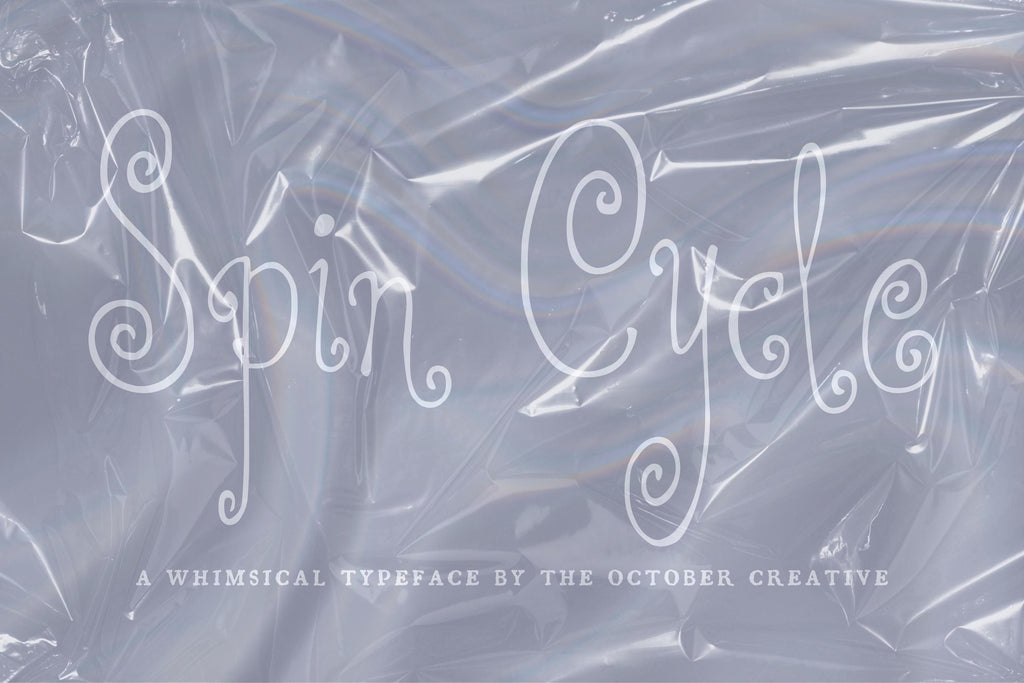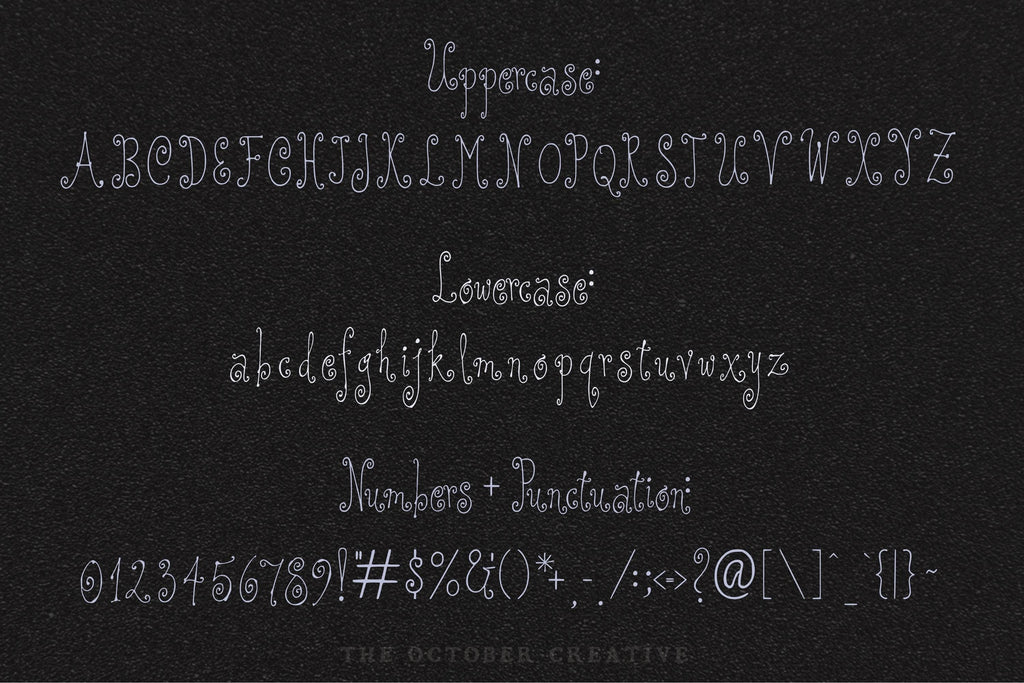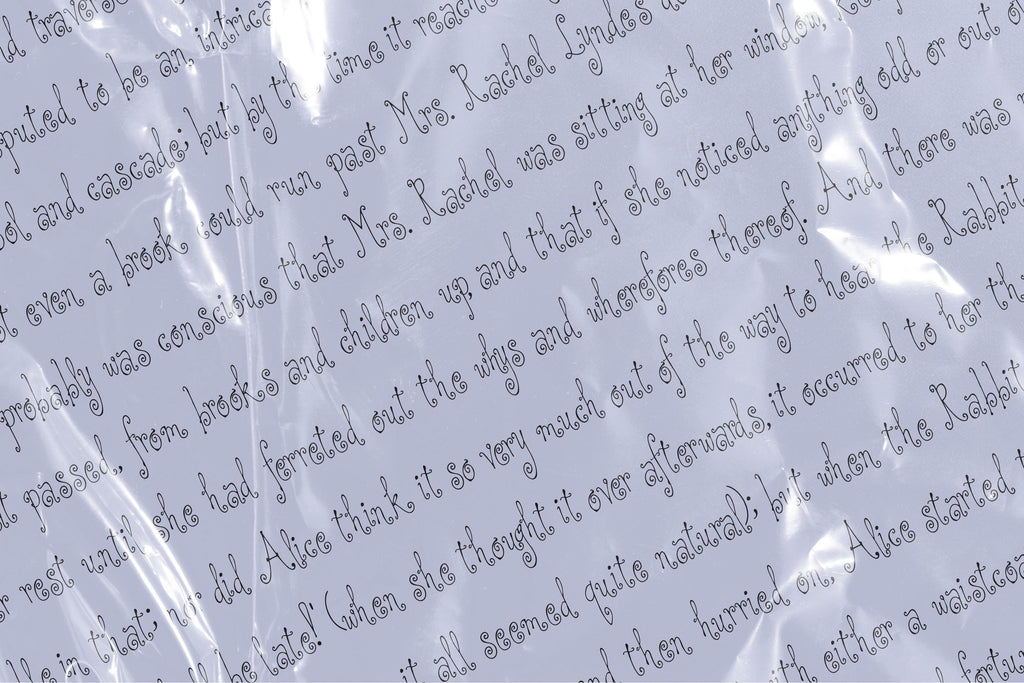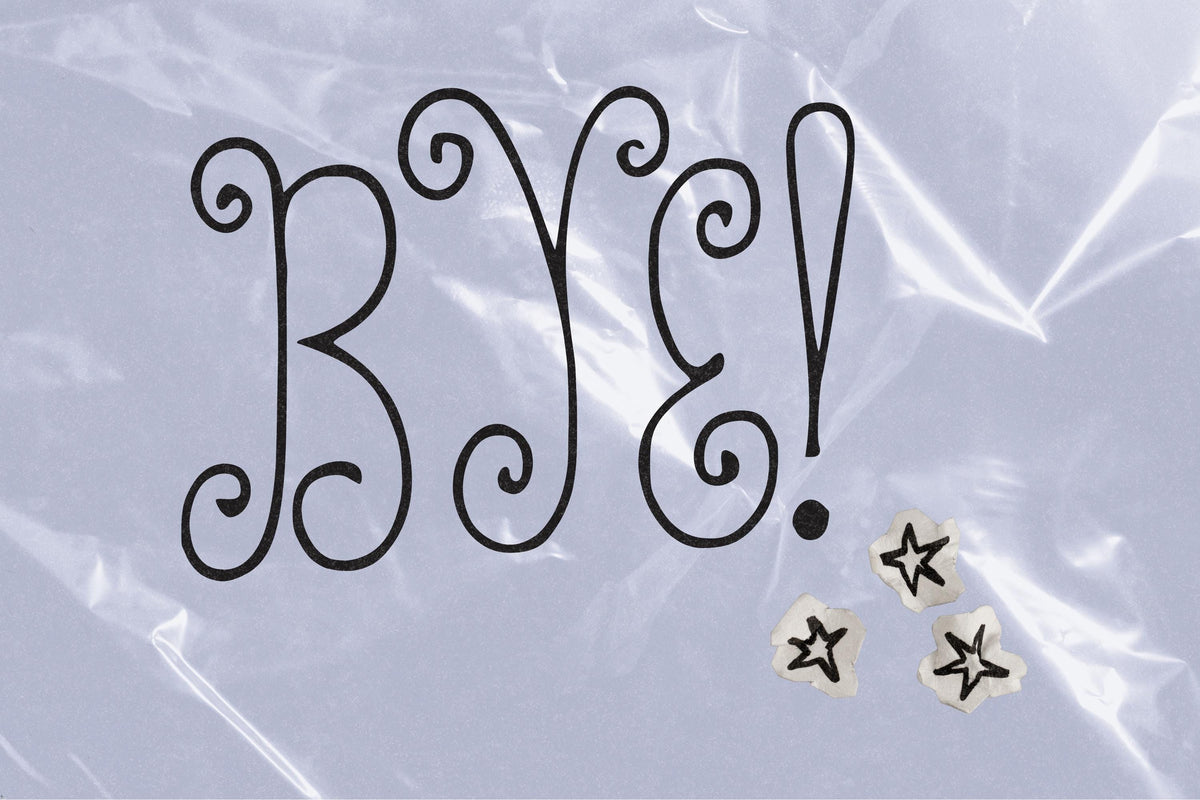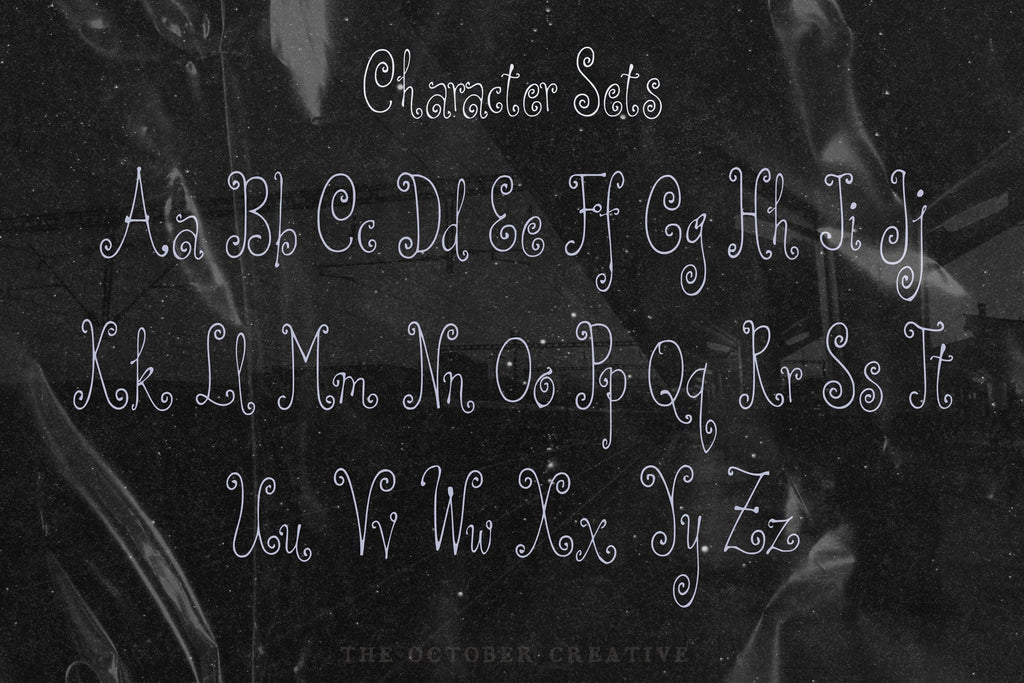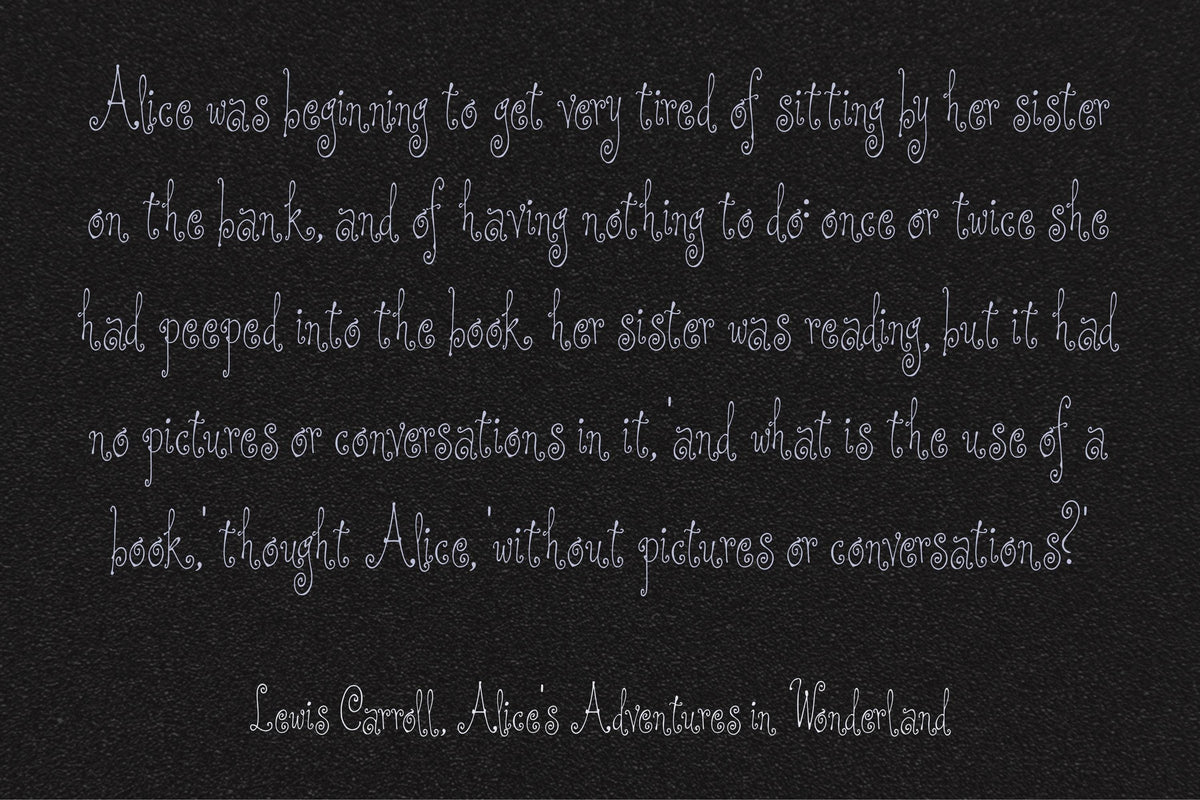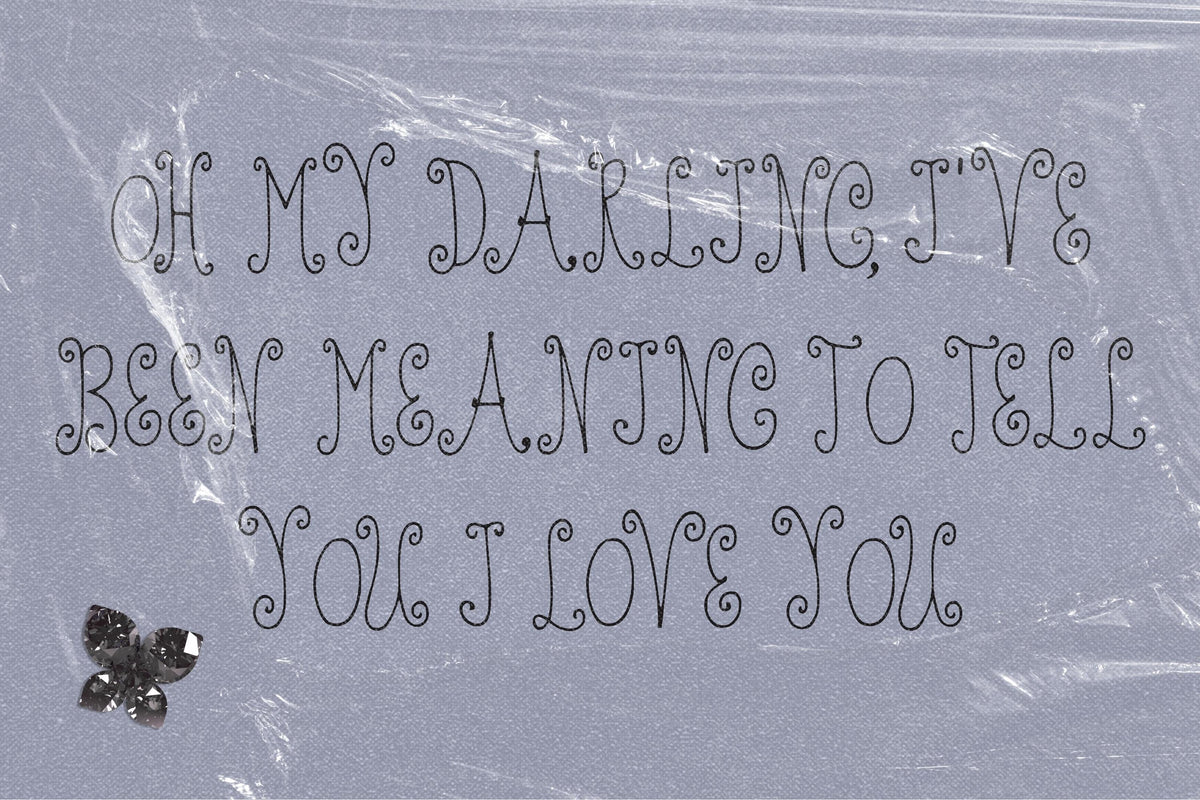
Spin Cycle Font
Spin Cycle pairs fine lettering with lovely, open spirals that make a name or short phrase feel special. Try it on wedding invitations, table numbers, and simple stationery with enough room for a good twirl.